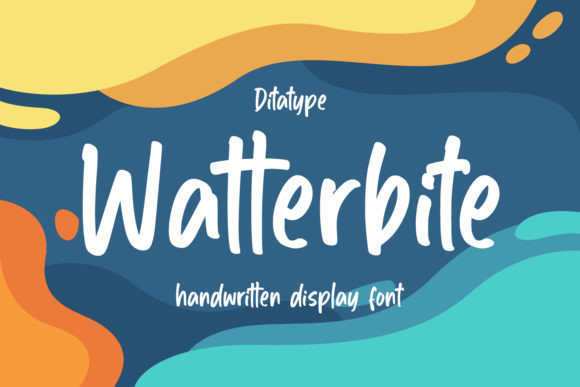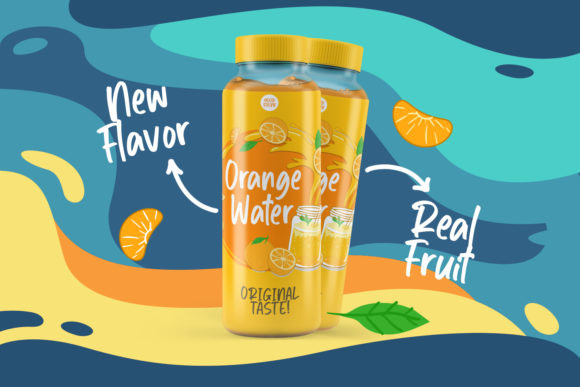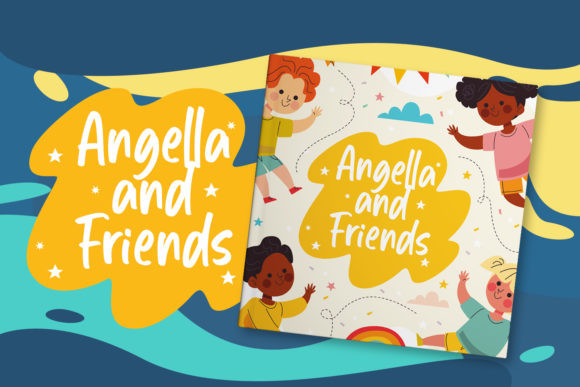
Watterbite Font
Watterbite is a sweet and friendly handwritten font. Its natural and unique style makes it incredibly fitting to a large pool of designs. The only limit is your imagination!